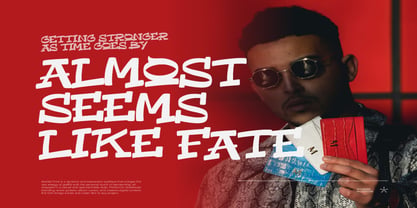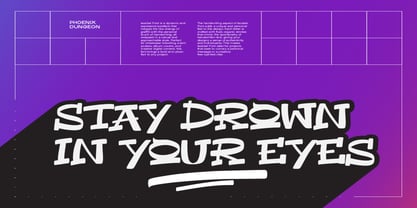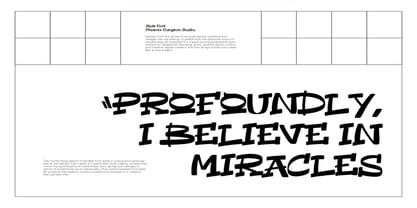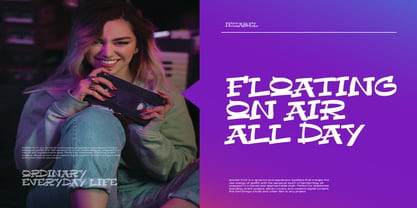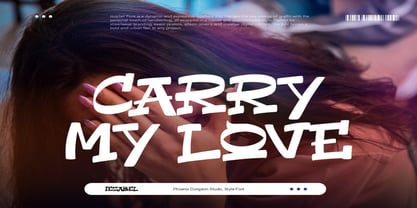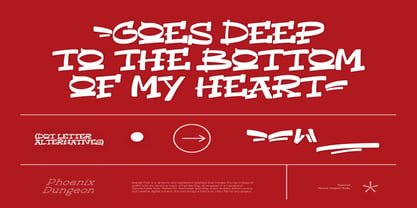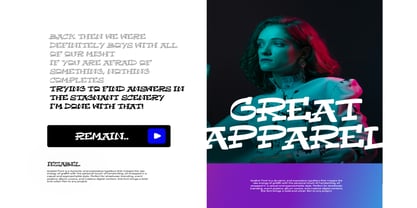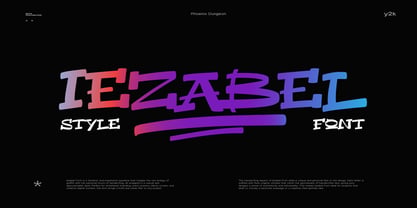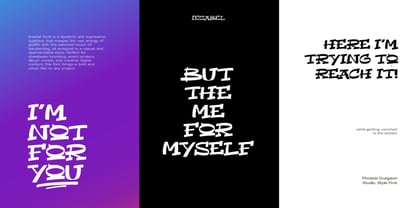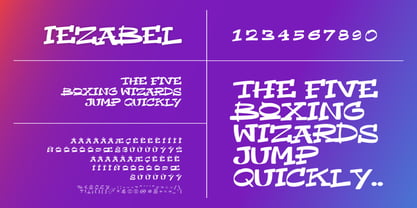
Iezabel
by Phoenix Group
The Iezabel Font Family was designed by Alif Naufal Muzakki and published by Phoenix Group. Iezabel contains 1 styles. More about this family
Iezabel Font is a bold and expressive graffiti-style typeface that mixes urban street vibes with the charm of casual handwriting. With dynamic strokes and playful energy, it’s perfect for streetwear branding, posters, album art, social media, and more. Each letter feels raw yet stylish, giving your design a unique personality. Great for bold titles, loud statements, and creative works that need attitude and flair.
Designers: Alif Naufal Muzakki
Foundry: Phoenix Group